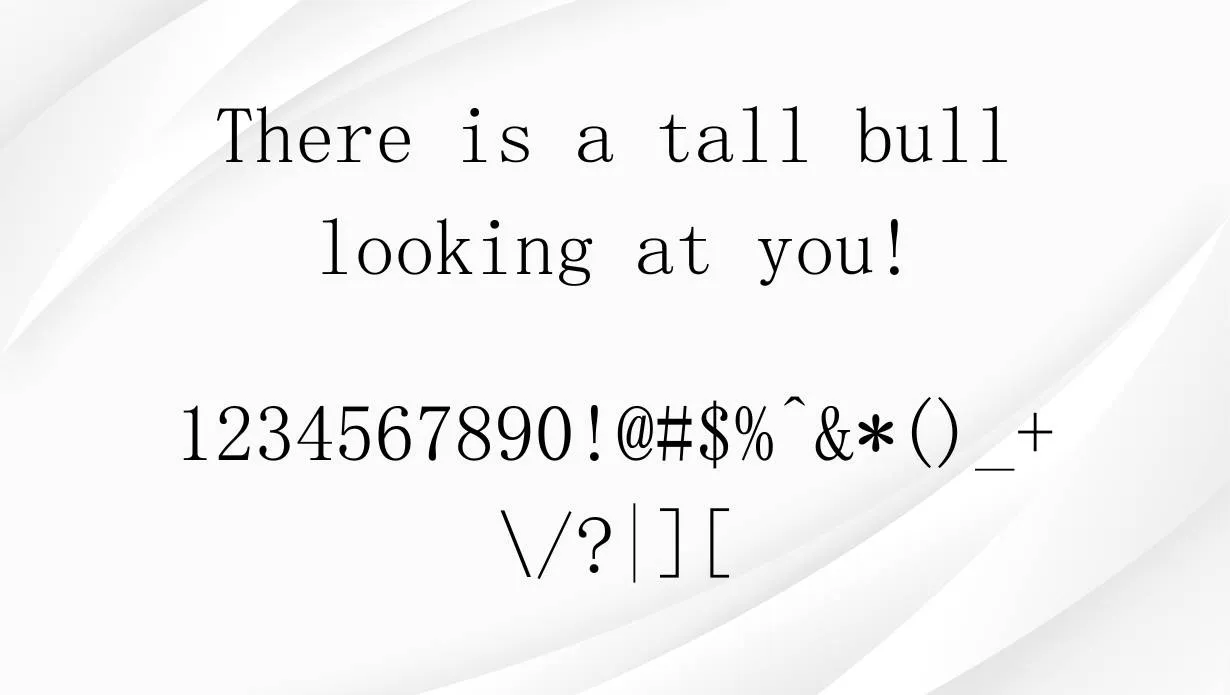
Fangsong Font is a gentle brushstroke for your words, introducing a calm and artistic design that radiates elegance. This font is perfect for projects where you want your words to convey a traditional and sophisticated appearance.
It’s like painting a subtle masterpiece with your words, giving your writing a touch of grace without being overly ornate. Fangsong Font is an artistic expression that transforms your words into a visual experience, creating an atmosphere of refinement and beauty.